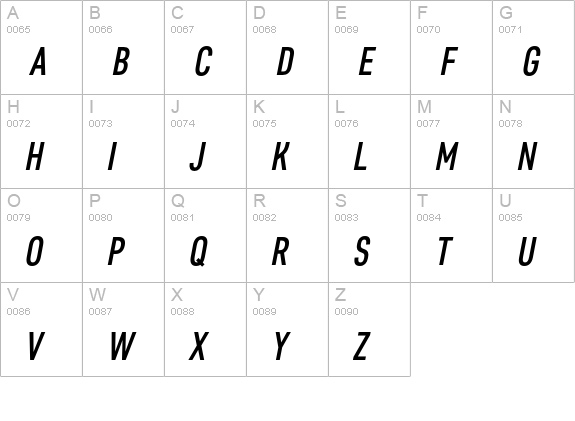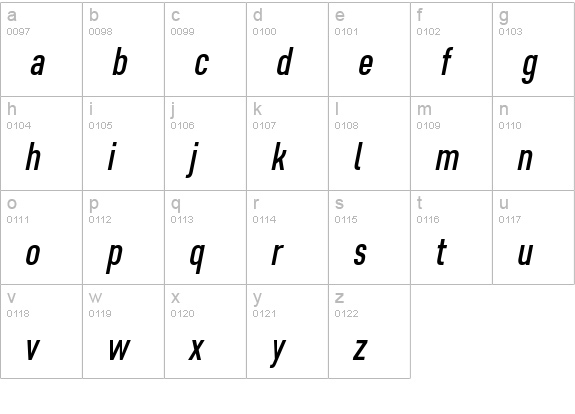
Core Sans D 47 Cn Medium Italic Font Details
Core Sans D 47 Cn Medium Italic is a balanced, medium-weight, italic variant in the Core typeface family \xE2\x80\x94 well suited to sub-headlines, navigation, and balanced editorial work.
Core Sans D 47 Cn Medium Italic is a modern and stylish font that exudes sophistication and elegance. With its sleek design and sharp angles, this font is perfect for adding a touch of class to any project. The medium weight and italic style of Core Sans D 47 Cn make it versatile and suitable for a wide range of design applications, from branding to editorial design. What's even better is that Core Sans D 47 Cn Medium Italic is available for free download at FontsMarket.com. This means that you can easily access this high-quality font without any cost, making it a valuable addition to your font collection. Don't miss out on the opportunity to enhance your designs with Core Sans D 47 Cn Medium Italic - download it for free today!